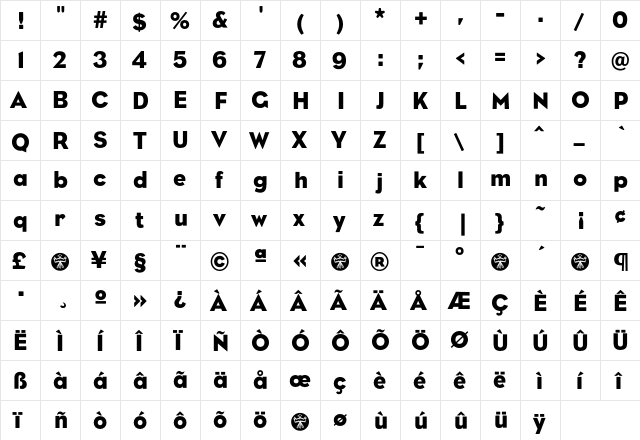
BureauEagleBook Regular
Design Context for BureauEagleBook Typeface
BureauEagleBook offers clean, dependable letterforms without strong stylistic allegiance, making it a practical choice for designers who need flexibility.